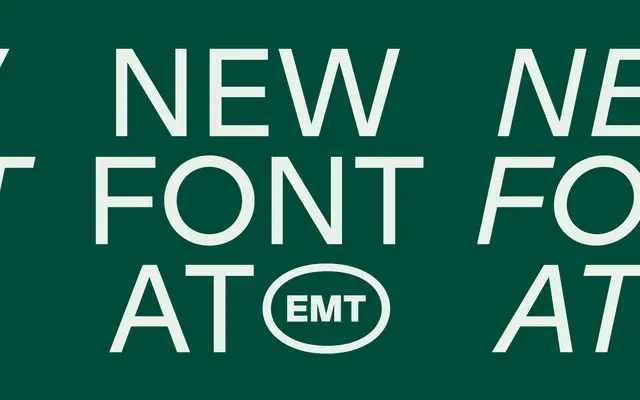
A wide-set geometric grotesque with closed apertures, rounded dots and idiosyncratic numerals that give it just enough character to avoid anonymity.
Realgar sits at the intersection of geometric, grotesque and humanist sans traditions, deploying wide proportions and closed apertures alongside rounded punctuation dots and distinctive numerals. The family runs across six weights from Regular to Black, each with a matching italic, and includes a variable font spanning the full range. Its eclectic construction makes it practical across editorial, branding and screen contexts where a neutral but characterful sans is needed.
Realgar blends geometric construction with grotesque conventions and humanist touches, placing it in an eclectic geometric grotesque subcategory. Its closed apertures and wide proportions are characteristic of grotesque influence, while the rounded dots and idiosyncratic numerals reflect geometric and humanist sensibilities.